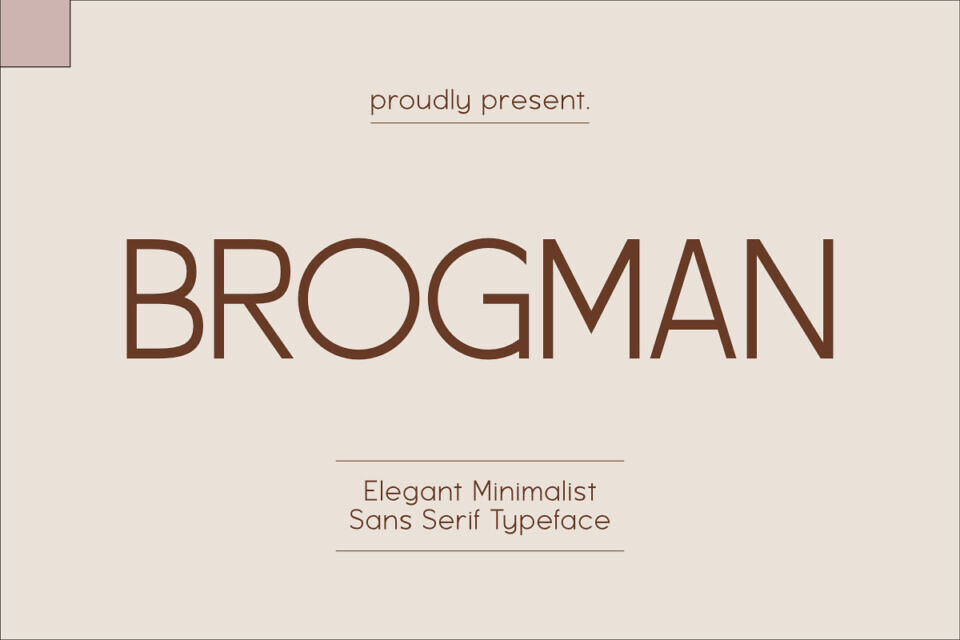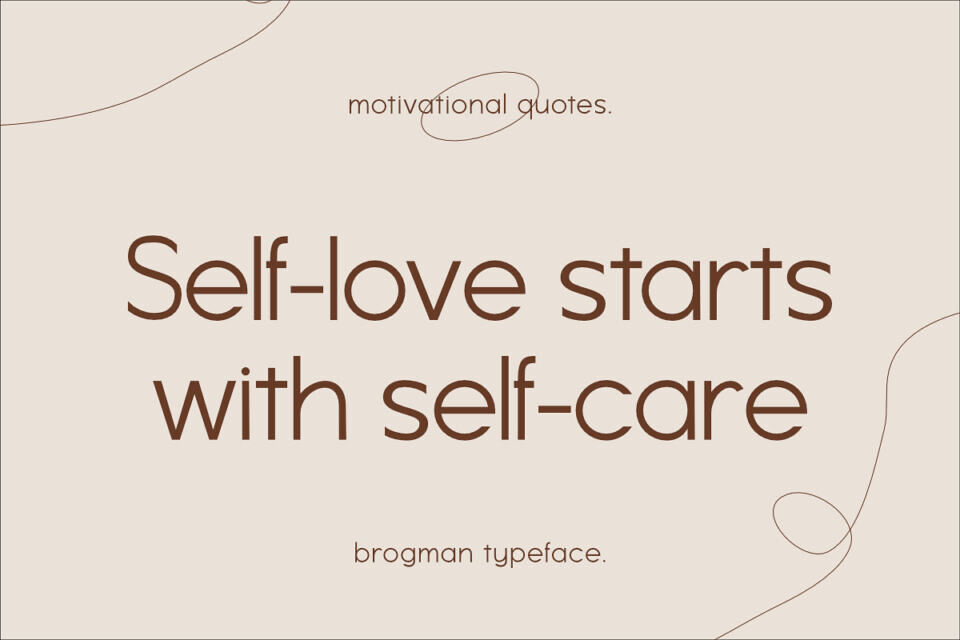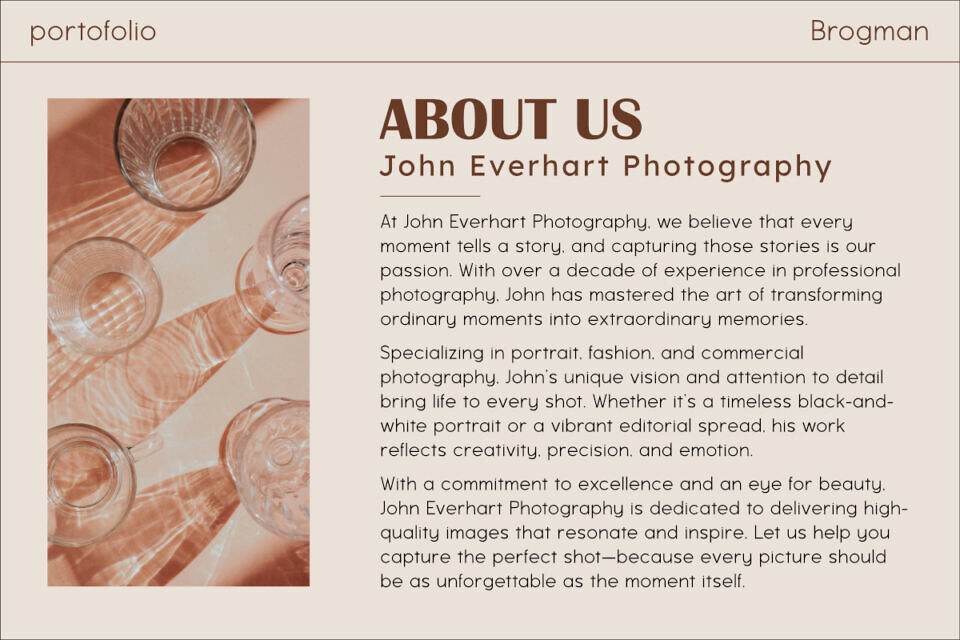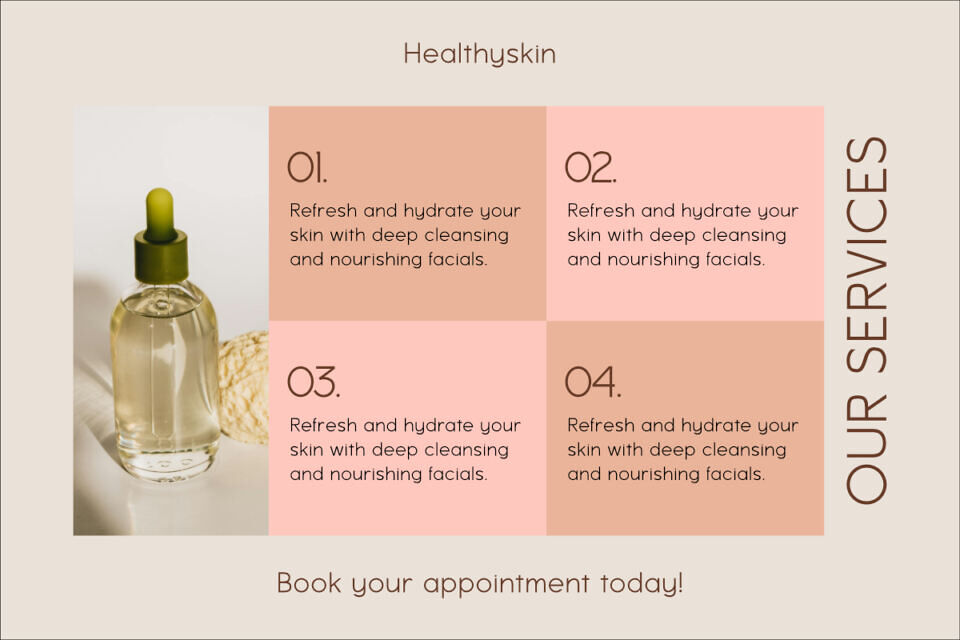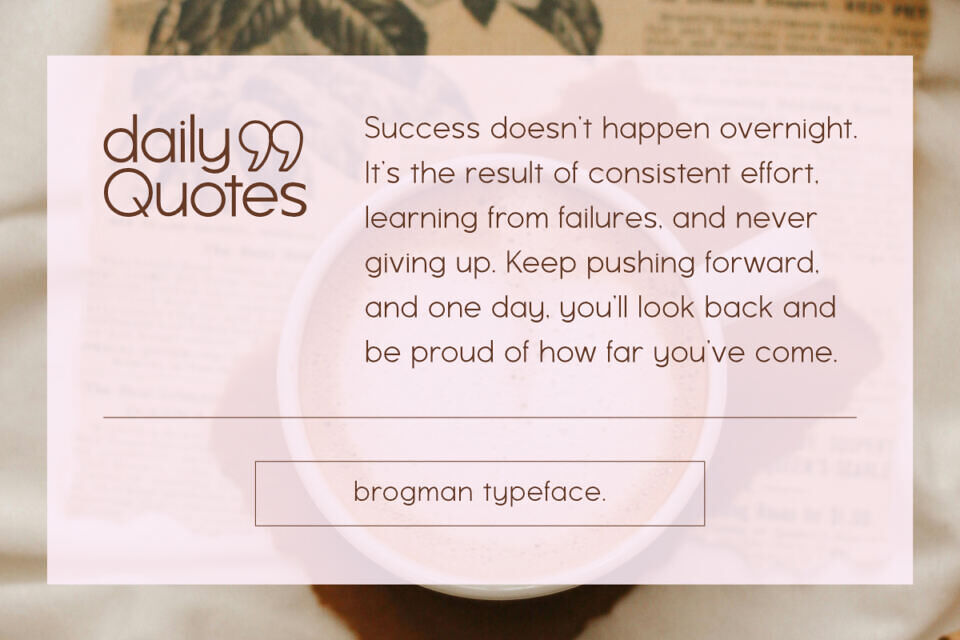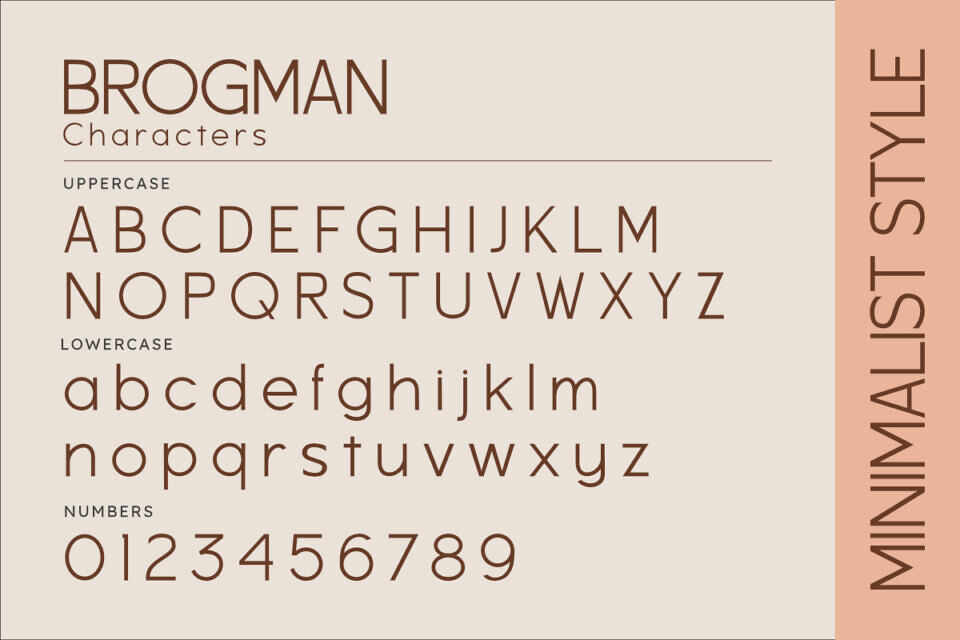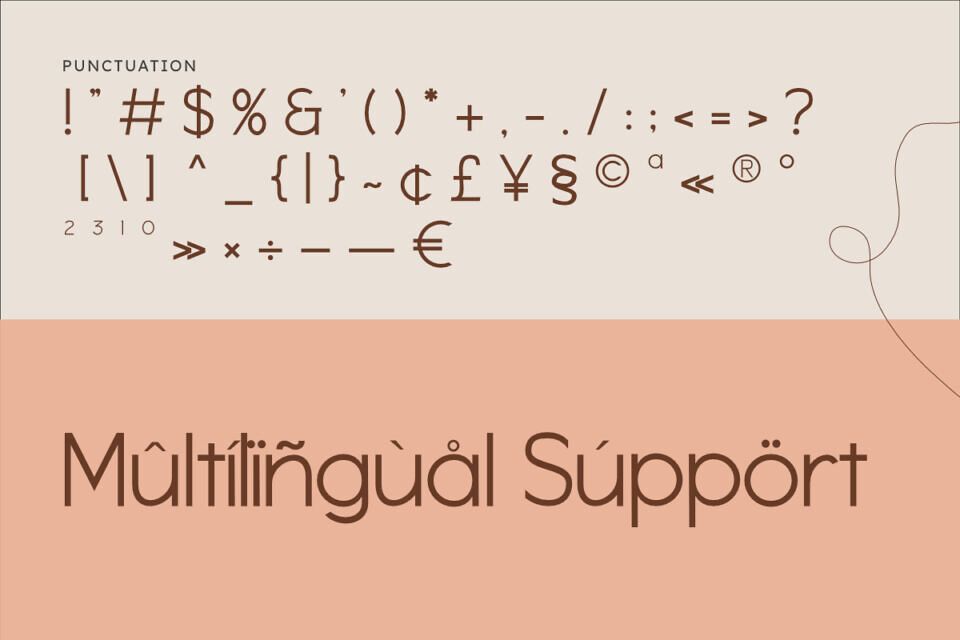
Brogman is an elegant minimalist sans serif typeface designed for sophisticated and refined aesthetics. This font features clean lines, balanced proportions, and a subtle modern touch, making it incredibly versatile for a wide range of design applications.
Its understated beauty and readability make it perfect for corporate branding, editorial content, high-end packaging, web design, and any project where clarity and a contemporary, sleek look are paramount. Enhance your designs with the timeless simplicity and grace of Brogman.